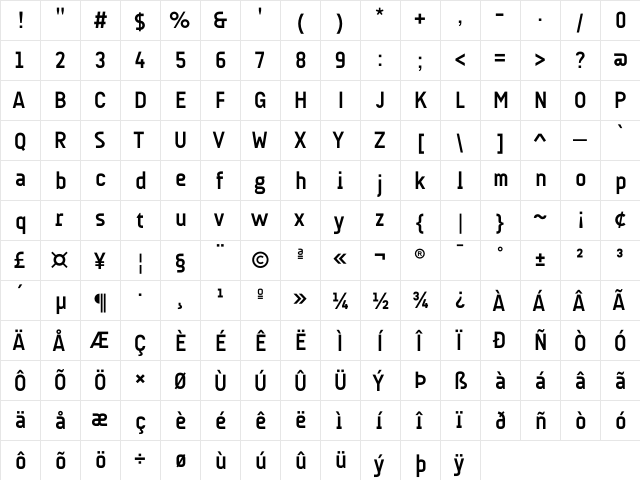
AUdimat Bold
| Designer | Jack Usine |
Design Context for AUdimat Typeface
AUdimat offers clean, dependable letterforms without strong stylistic allegiance, making it a practical choice for designers who need flexibility. The heavy weight commands attention and anchors typographic hierarchies.